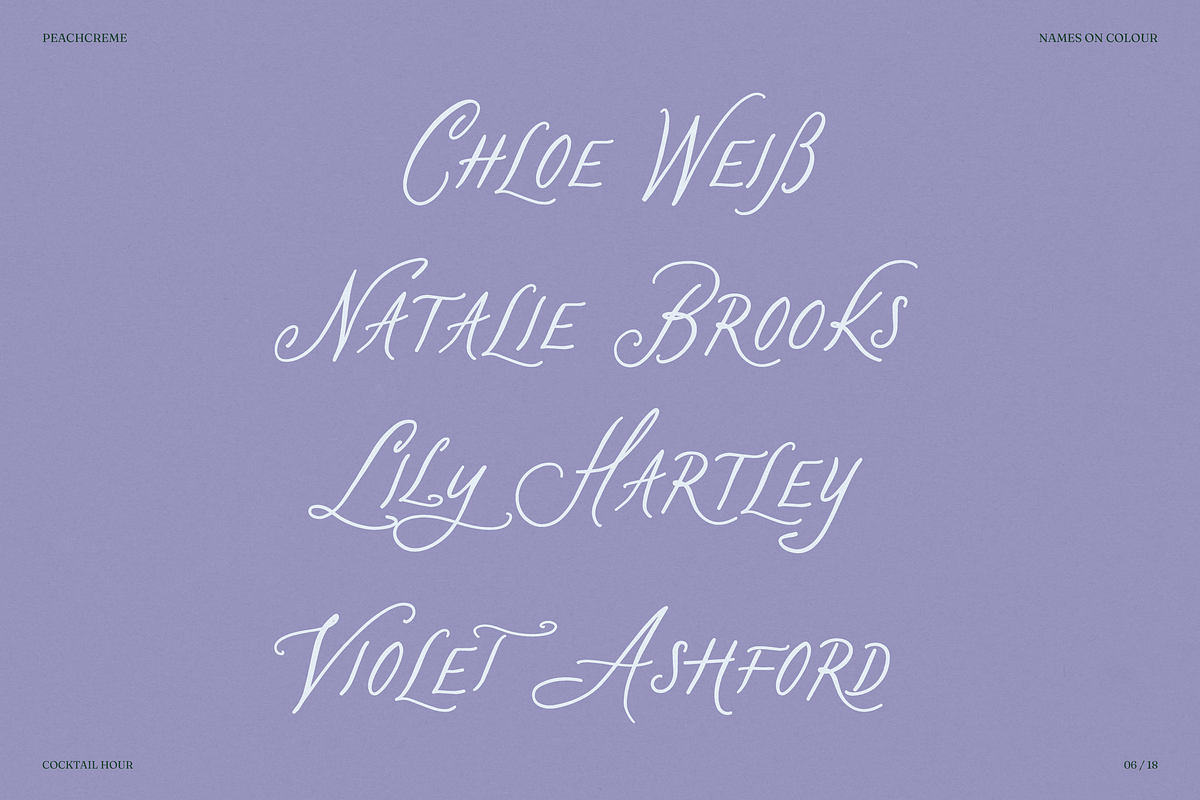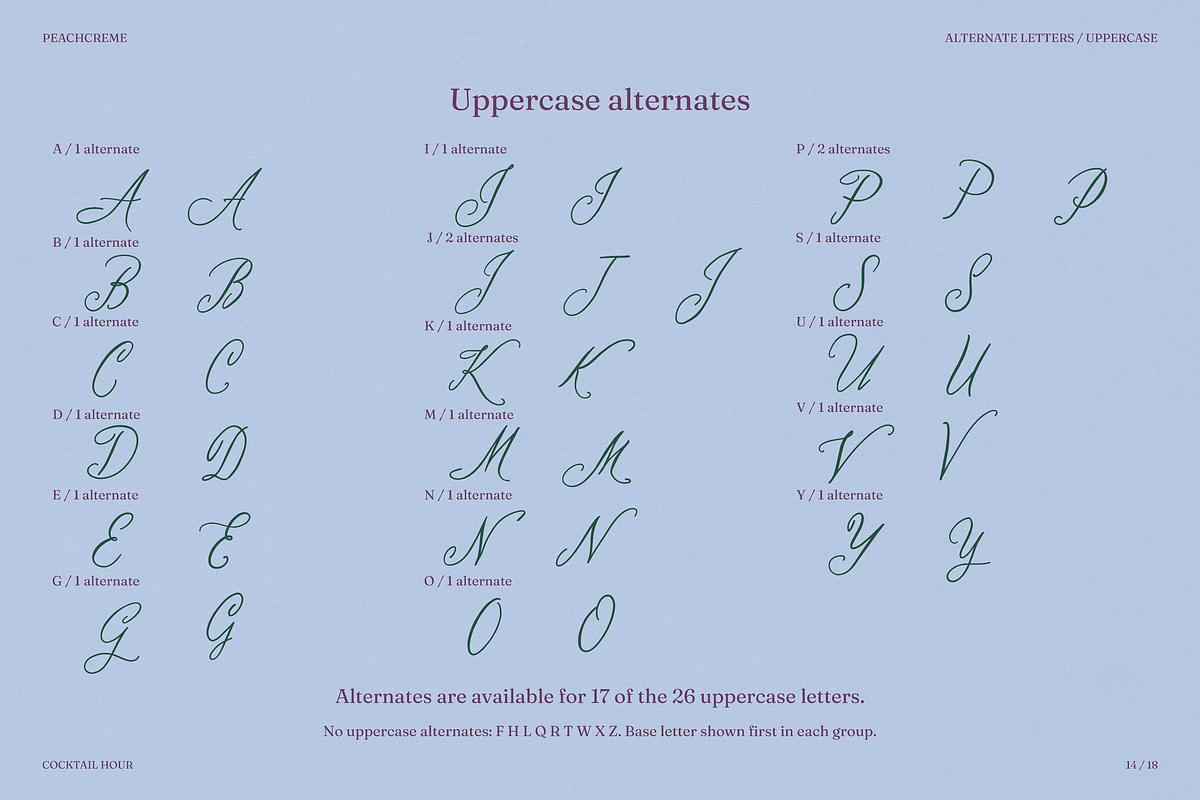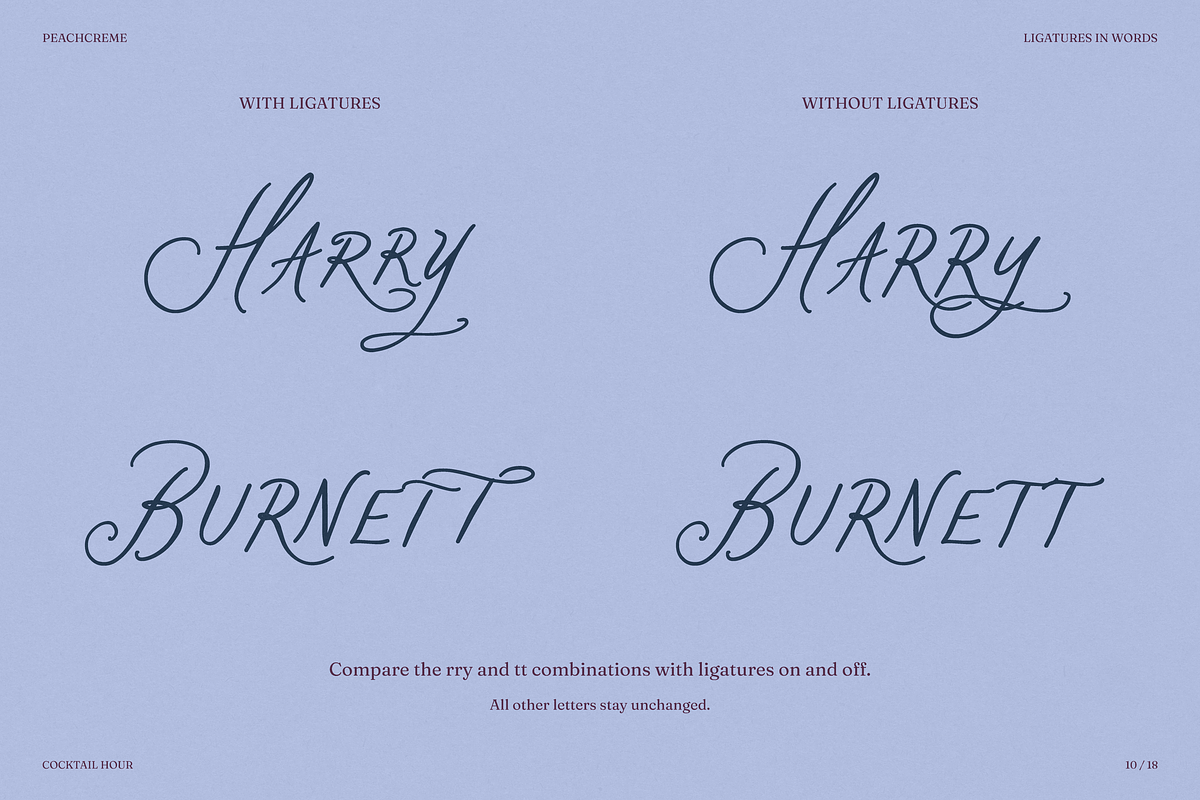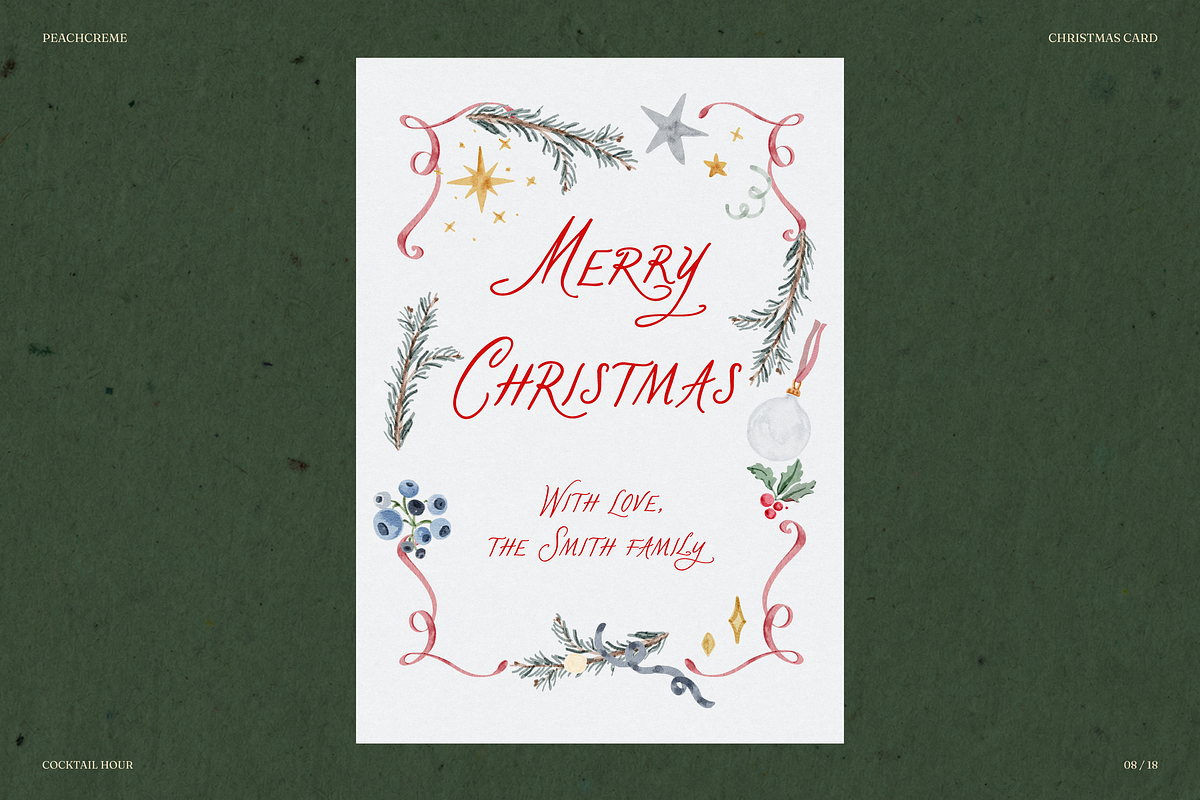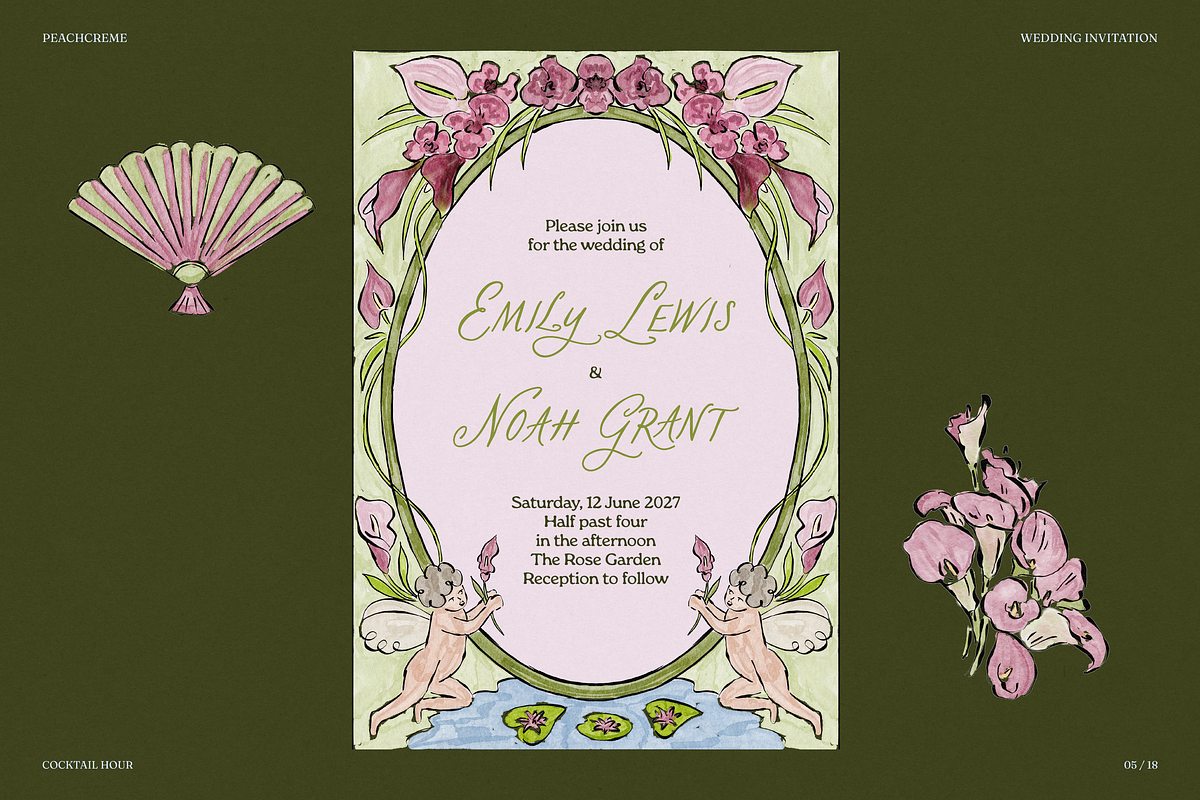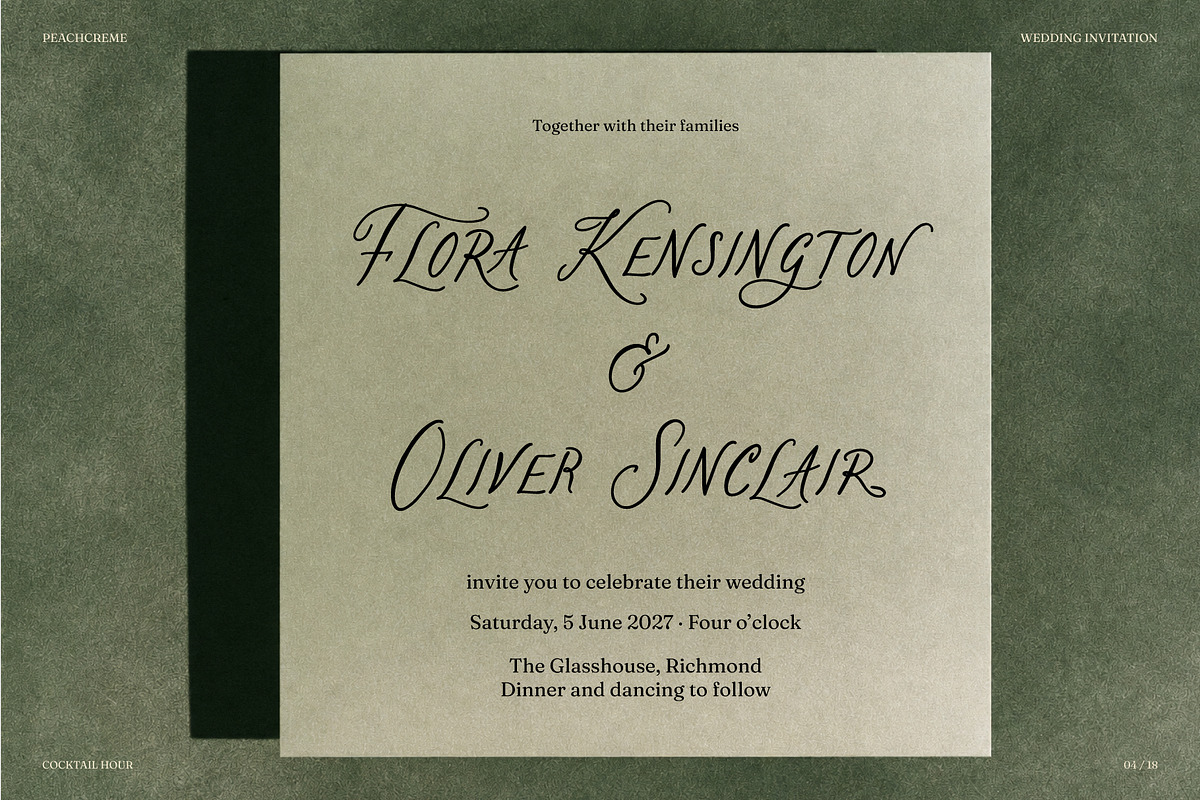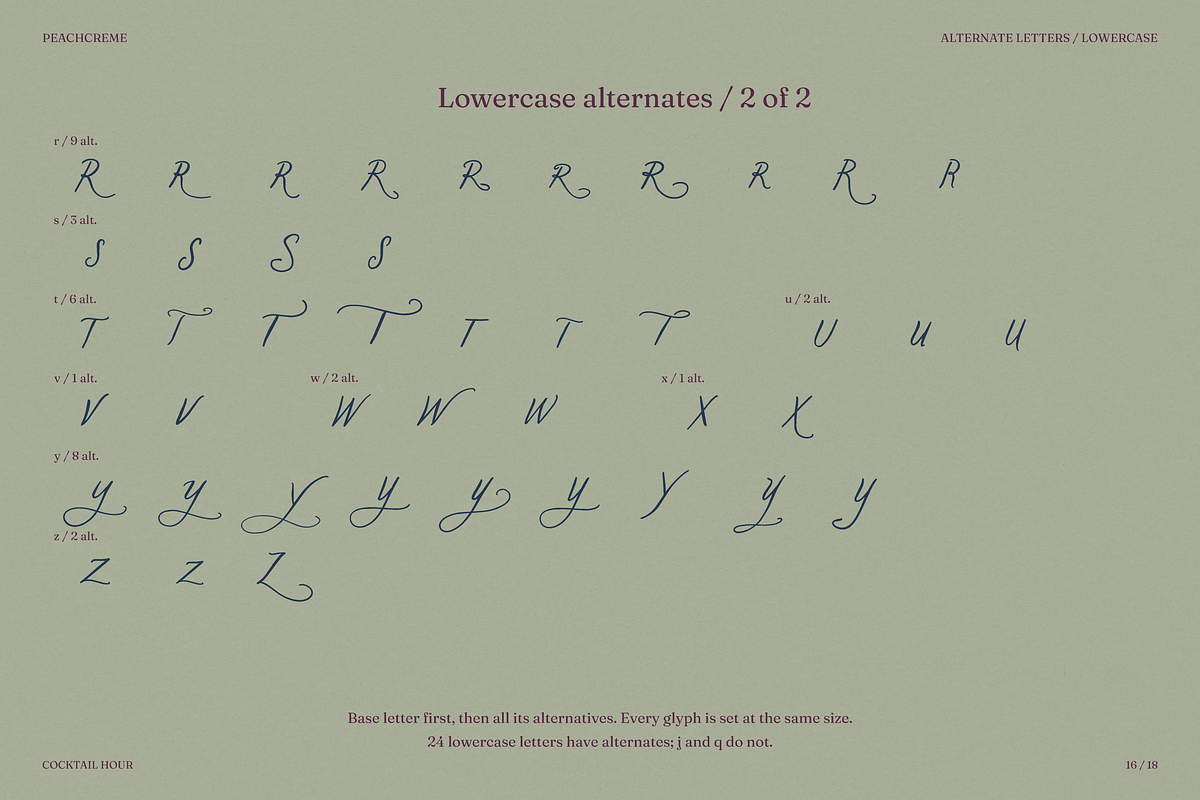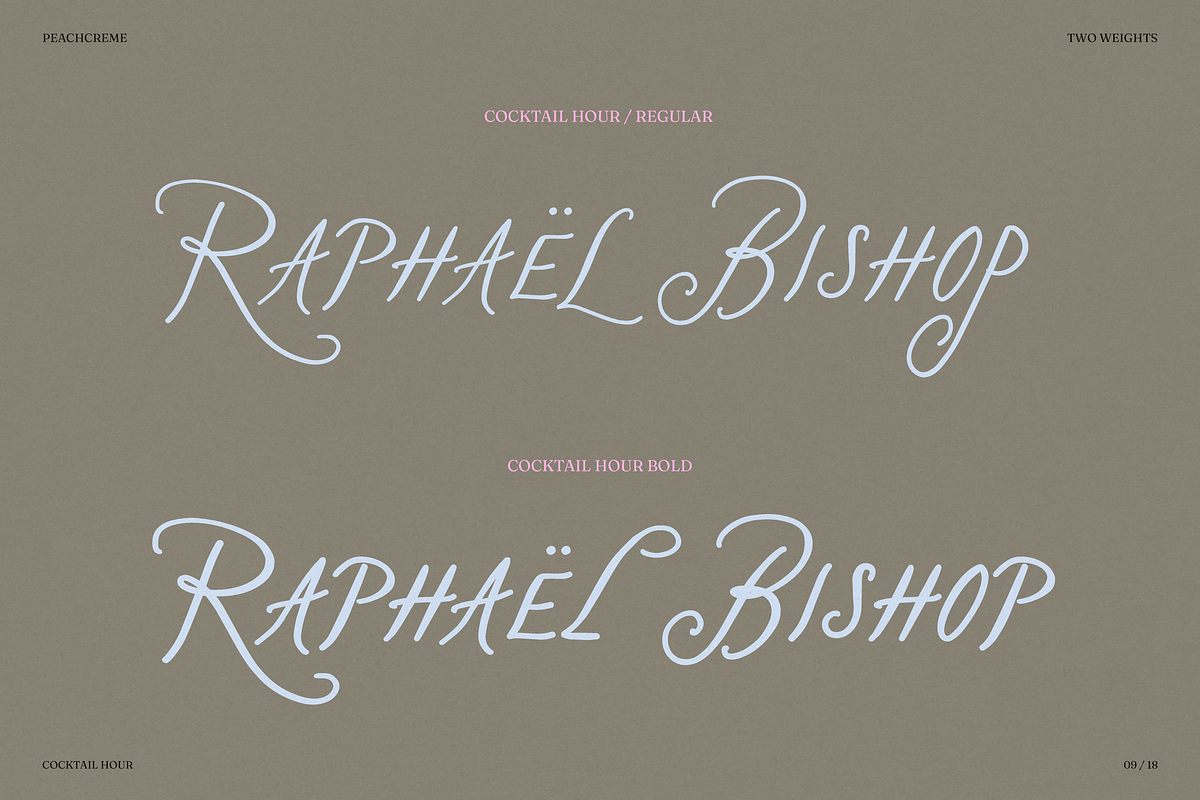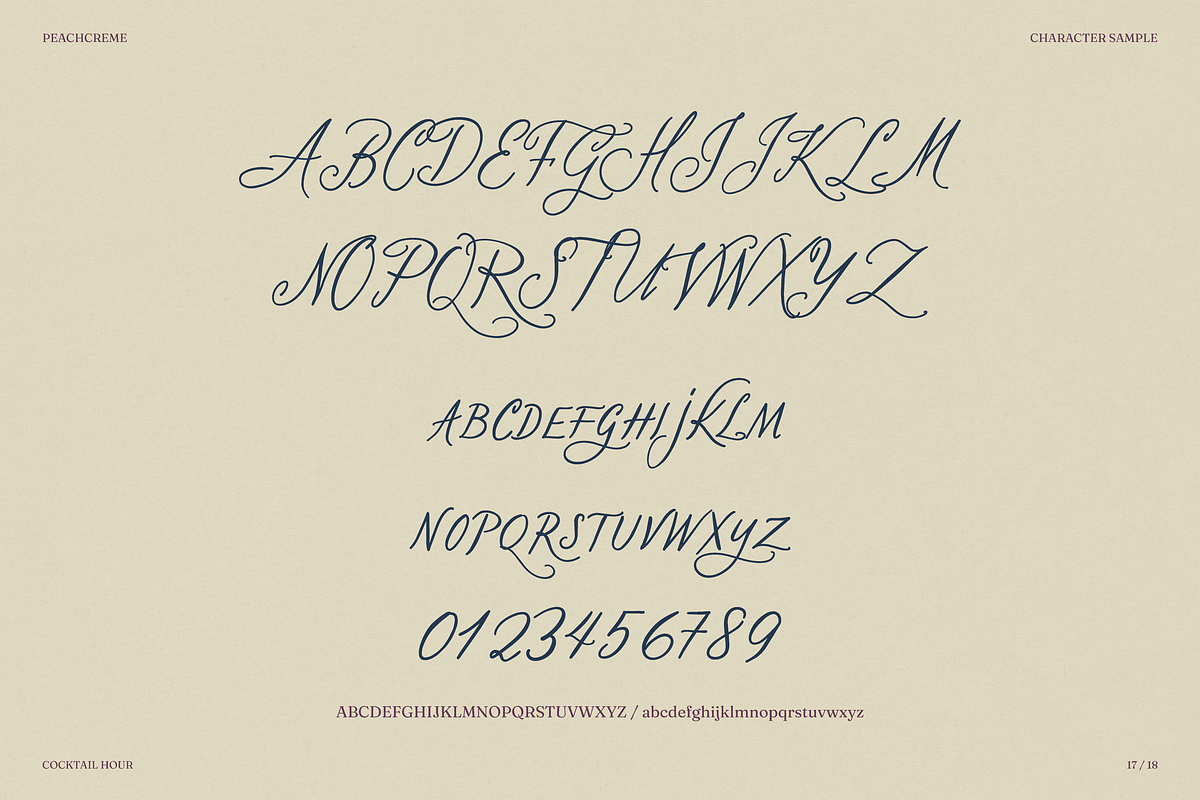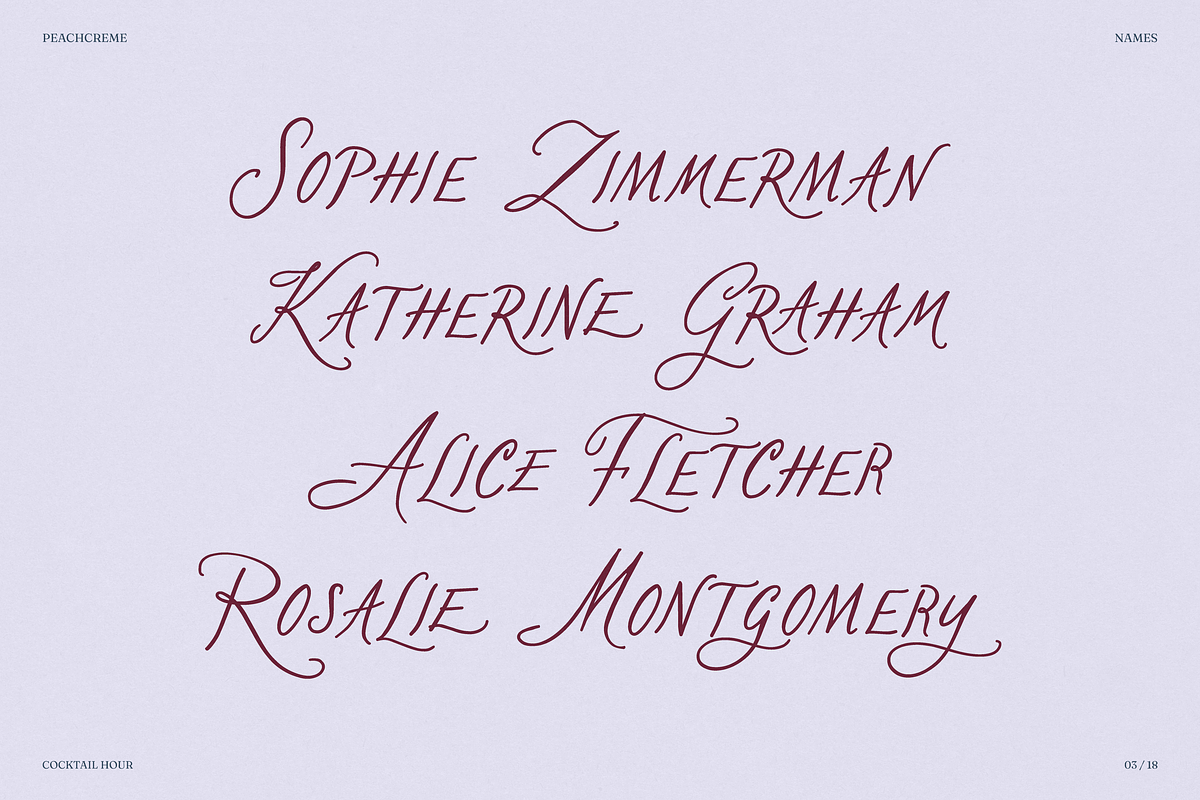
Cocktail Hour
Cocktail Hour is a playful, slightly unpredictable script with two weights, Regular and Bold. Long, sweeping capitals sit alongside smaller, dancing letters, giving words a loose rhythm. I made it with invitations, dinner menus, personal stationery, and expressive branding in mind.
In some ways, this is another experimental font for me. When I made Lovers in New York, the letterforms felt more predictable in how they worked together. With Cocktail Hour, I let the letters move around more. Some reach upwards, some stretch out, and others curl into the space around them. The result depends quite a bit on the words you choose, which is part of what I enjoy about it.
That freedom also makes spacing and kerning more complicated. The more irregular the letters are, the harder it is to make every possible combination feel equally balanced. I worked on these relationships and added ligatures and alternate characters to give certain combinations a more natural flow. Even so, some words may benefit from a little manual spacing or a different choice of letter.
Not every letter has an alternate. I added alternatives where I felt they would be useful, focusing on frequently used letters and combinations I encountered while testing English words and names. They are individual options to try within a word, rather than a complete second alphabet.
The font includes accented Latin characters, but much of my work on ligatures and letter combinations was guided by English. If you plan to use it in another language, please try the actual words you need in the font tester. Having the characters available does not necessarily mean every combination will have the same flow as the examples shown.
I would also recommend trying a few alternates before settling on your final layout. A different capital or ending can change the shape of a whole word. The preview images show some of the combinations I liked, but your own text may need a slightly different approach.